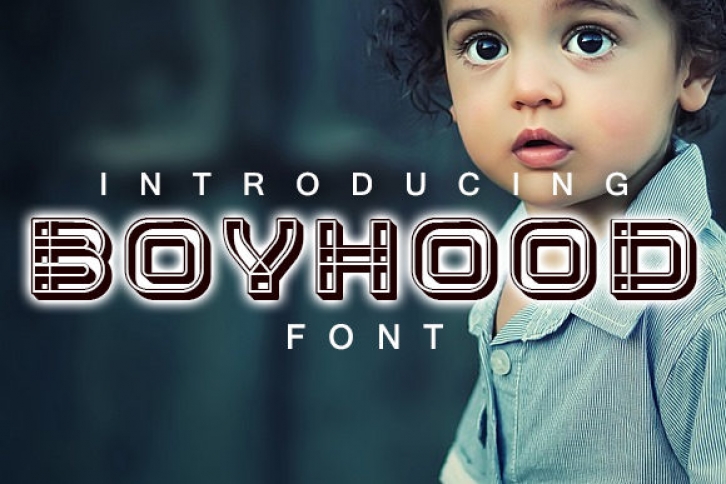
Boyhood is an incredibly unique and bold display font. Masterfully designed to become a true favorite, this font has the potential to bring each of your creative ideas to the highest level!